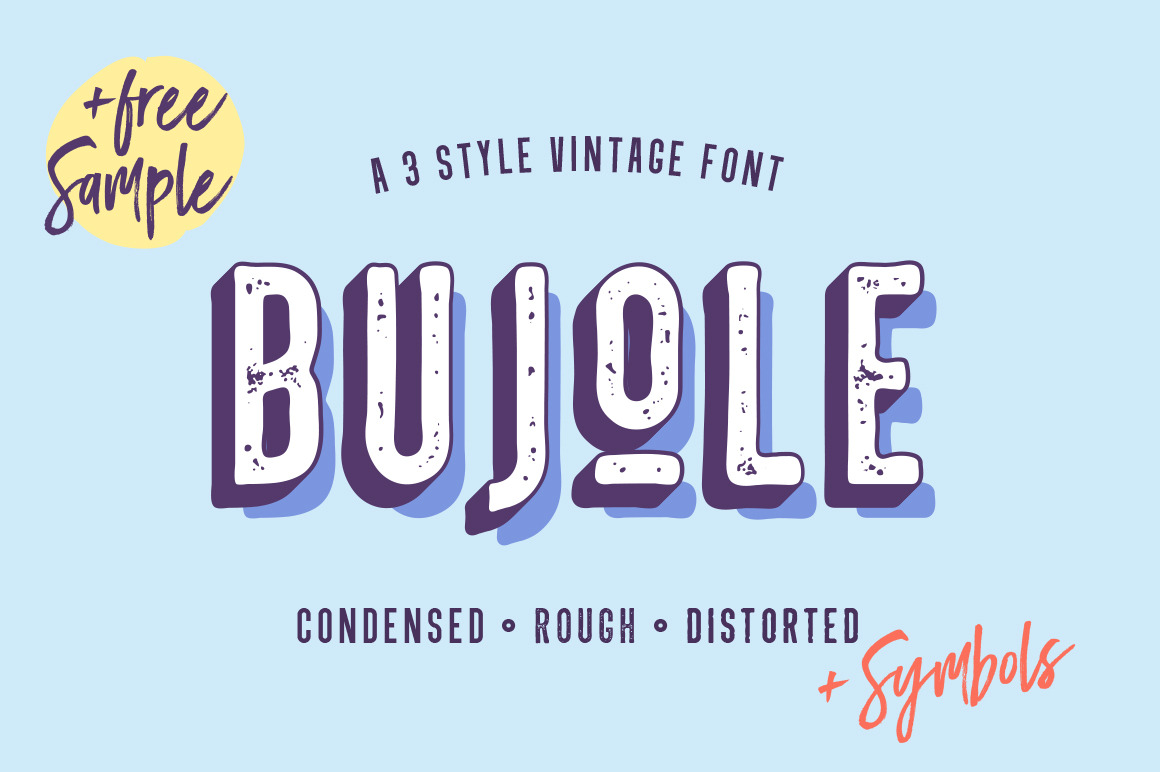
Bujole - A 3 Style Vintage Font
Bujole is a vintage inspired font that comes in 3 different styles: Condensed, Rough and Distorted. Use this font to create Logos, Badges, Labels, Packaging Design, Headlines, Advertisement or simply use it in your next design project.